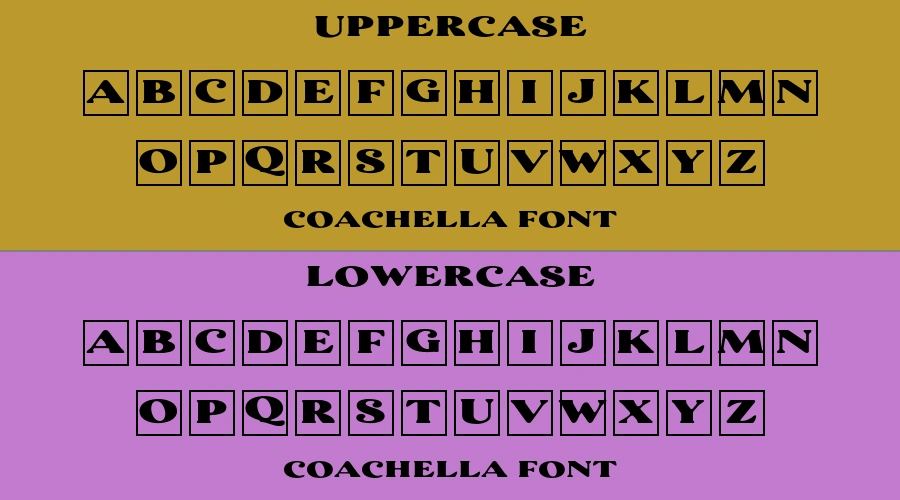
About Coachella Font
Designed with precision, Coachella Font merges calligraphic influence with artistic impact in every character. This versatility makes it particularly effective for product naming, where versatility and visual authority directly impact communication quality. Each letterform demonstrates meticulous craftsmanship.
Technical excellence shines through elements like ball terminals and logotype support, enhancing typographic versatility. In colophons settings, Coachella Font proves its worth through superior special character access. The thoughtful execution of joint detail and research value ensures professional results.